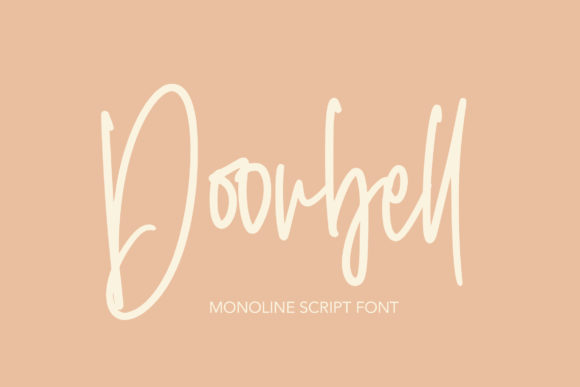
Doorbell Font: The Sweet and Friendly Handwritten Font for Your Design Needs
Are you looking for a font that can add a touch of warmth and personality to your designs? Look no further than the Doorbell font. This sweet and friendly handwritten font is perfect for a wide range of design projects, from branding and packaging to wedding invitations and social media graphics. In this article, we’ll take a closer look at the Doorbell font, its unique features, and how you can use it to elevate your designs.
What is Doorbell Font?
Doorbell font is a beautiful, handwritten font that is designed to look natural and unique. Its smooth, flowing lines and rounded edges give it a friendly and approachable feel that’s perfect for designs that need a personal touch. The font is highly versatile and can be used for a variety of design projects, including:
- Branding and packaging design
- Wedding invitations and stationery
- Social media graphics and posts
- Signage and display graphics
- And more!
Unique Features of Doorbell Font
So, what makes Doorbell font so special? Here are just a few of its unique features:
- Natural and unique style: Doorbell font has a natural, handwritten look that’s unlike any other font. Its unique style makes it perfect for designs that need a personal touch.
- Highly legible: Despite its unique style, Doorbell font is highly legible, even at small sizes. This makes it perfect for designs that need to communicate a message clearly.
- Versatile: Doorbell font can be used for a wide range of design projects, from formal to informal.
How to Use Doorbell Font in Your Designs
Using Doorbell font in your designs is easy. Here are a few tips to get you started:
- Pair it with a bold font: Doorbell font looks great when paired with a bold, sans-serif font. This creates a nice contrast between the two fonts and makes your design stand out.
- Use it for headings and titles: Doorbell font is perfect for headings and titles. Its unique style makes it a great choice for designs that need a personal touch.
- Add some texture: Doorbell font looks great with texture. Try adding a texture overlay to your design to give it a more organic feel.
The Benefits of Using Doorbell Font
So, why should you use Doorbell font in your designs? Here are just a few benefits:
- Adds a personal touch: Doorbell font adds a personal touch to your designs. Its unique style makes it perfect for designs that need a human touch.
- Increases engagement: Doorbell font can help increase engagement with your audience. Its friendly and approachable feel makes it perfect for designs that need to connect with the viewer.
- Versatile: Doorbell font is highly versatile and can be used for a wide range of design projects.
Doorbell Font: The Perfect Choice for Your Design Needs
In conclusion, Doorbell font is the perfect choice for your design needs. Its unique style, natural look, and friendly feel make it perfect for a wide range of design projects. Whether you’re looking to add a personal touch to your branding, create a beautiful wedding invitation, or design a social media graphic, Doorbell font is the perfect choice.